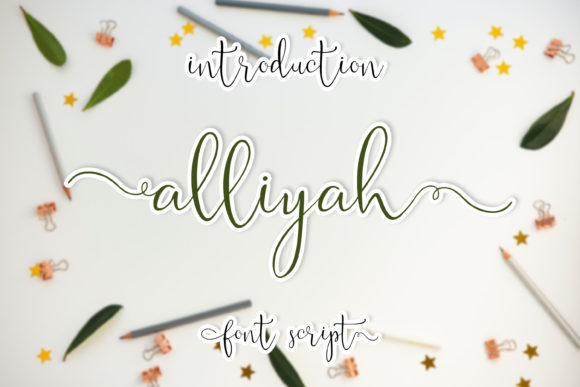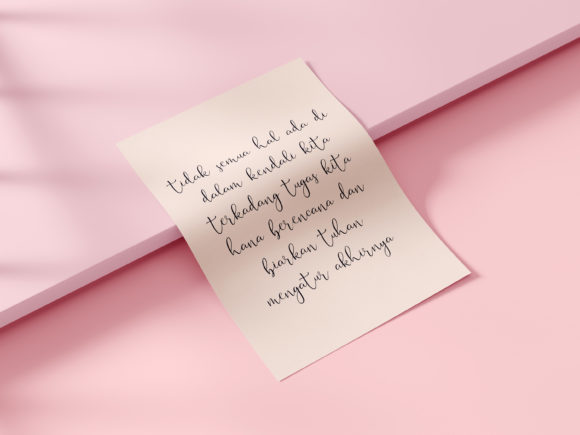
About Alliyah Font
Alliyah is a thin lettered handwritten font, described by an elegant touch, perfect for your favorite projects. This font is PUA encoded which means you can access all of the glyphs and swashes with ease!